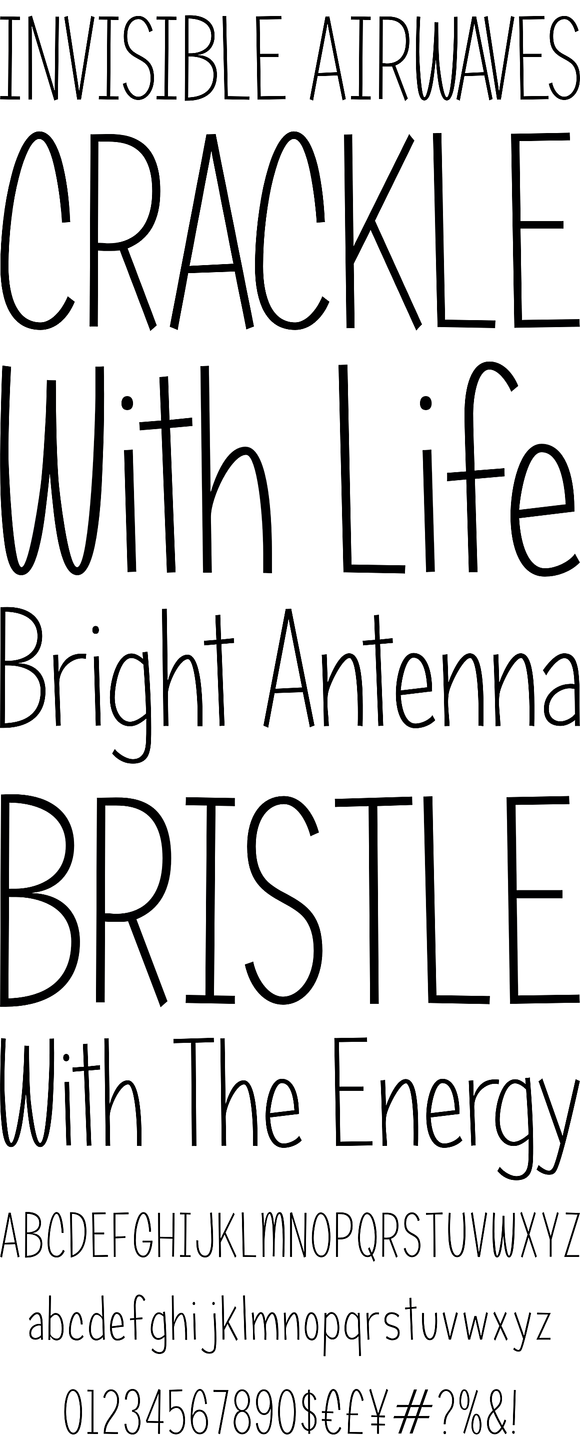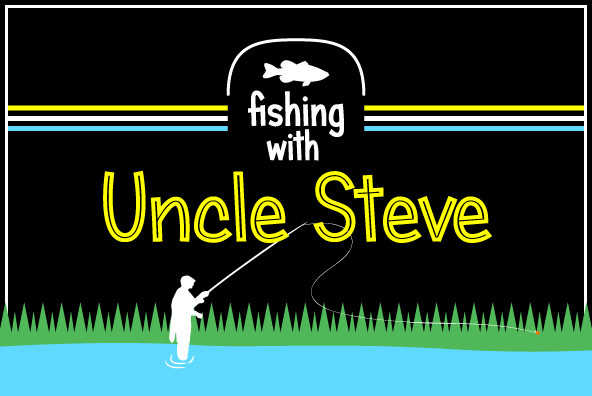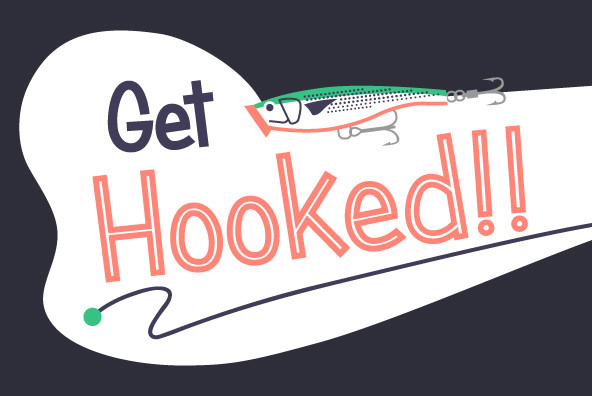
Candy Square is part of the classic Candy family which is inspired by vintage confectionary packaging yet yields a modern look and is a perfect display typeface for any use, even at small sizes.
Candy Square Candy Square